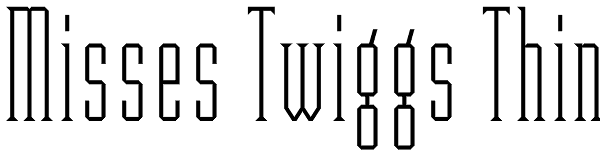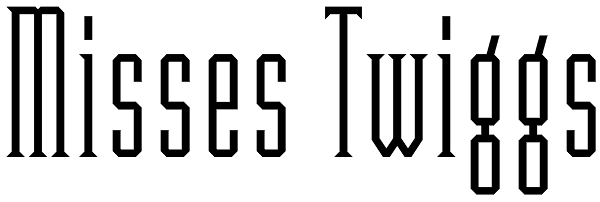
Misses Twiggs
Misses Twiggs is a contemporary modern serif created by the American type designer Alex Kaczun. It compliments its partner Mister Twiggs and is a perfect marriage of two fonts. Mister Twiggs brings his tall good looks and Misses Twiggs bring her...
Misses Twiggs Thin
Misses Twiggs Heavy
Misses Twiggs